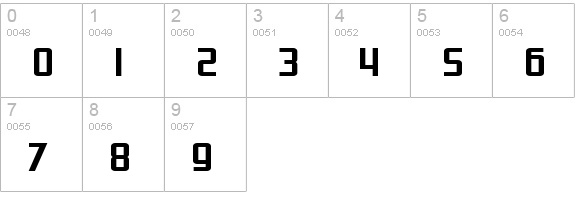
SF Proverbial Gothic Bold Font Details
SF Proverbial Gothic Bold is a strong, high-contrast variant in the SF typeface family \xE2\x80\x94 well suited to headlines, attention-grabbing titles, and strong calls-to-action.
Introducing SF Proverbial Gothic Bold, a captivating and striking font that effortlessly combines the elements of tradition and modernity. This bold and commanding typeface is the epitome of sophistication, featuring intricate details and a sense of timeless elegance. SF Proverbial Gothic Bold exudes a sense of mystery and intrigue, captivating the reader's attention with its sharp and distinctive letterforms. The strong and powerful strokes make a bold statement on any design project, whether it's a logo, headline, or poster. This font's versatility knows no bounds, as it seamlessly transitions from traditional to contemporary designs with ease. Its clean and well-defined lines create a sense of order and balance, while the subtle curves add a touch of grace and sophistication. One of the most remarkable aspects of SF Proverbial Gothic Bold is that it is freely available to download at FontsMarket.com. This means that designers and enthusiasts alike can easily access this captivating font and unleash their creativity without any constraints. Whether you're a professional designer or an aspiring artist, SF Proverbial Gothic Bold is the perfect choice to elevate your designs to new heights. Its bold and commanding presence will leave a lasting impression, ensuring that your message is delivered with impact and style. So, why wait? Discover the power of SF Proverbial Gothic Bold today and let your designs stand out from the crowd. Download it freely at FontsMarket.com and embark on a creative journey that knows no boundaries.